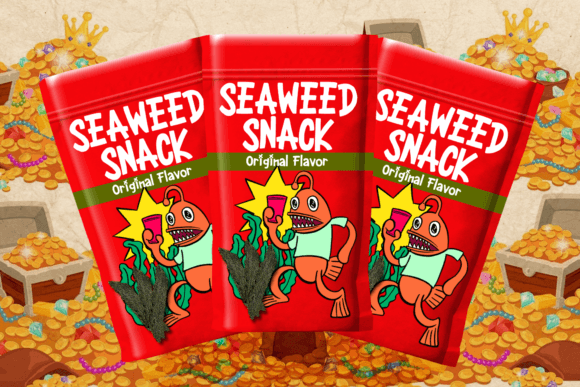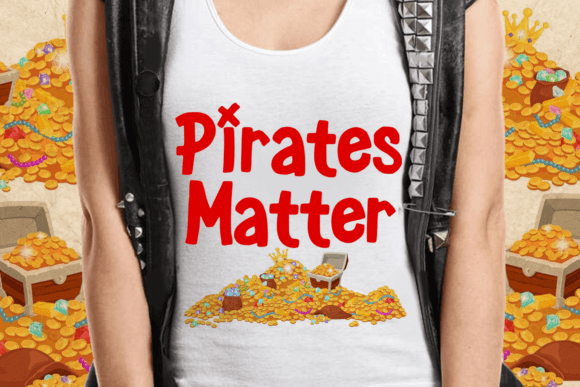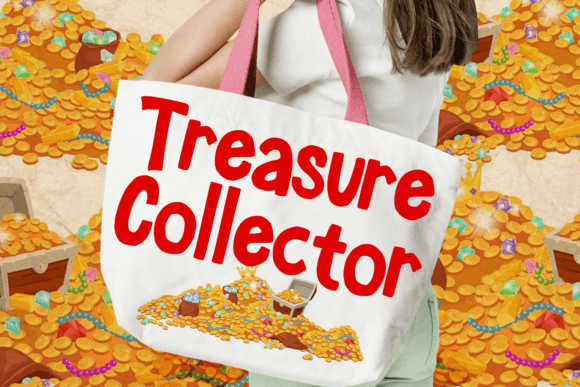
Pirate Treasure is a fun pirate-themed display font, you can use it on your daily activities, your fun projects, birthdays, school, and others.
Use this font for many design ideas such as mugs, t-shirt designs, posters, stickers, greeting cards, and many more This font will add a cool touch to your designs.
Pirate Treasure Font offers exceptional quality and versatility, making it a valuable addition to your design toolkit. Whether you’re creating for personal projects or commercial use, Pirate Treasure Font delivers professional results.